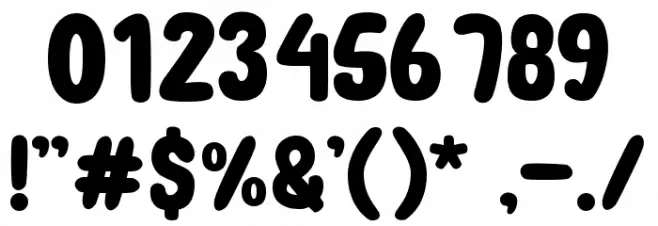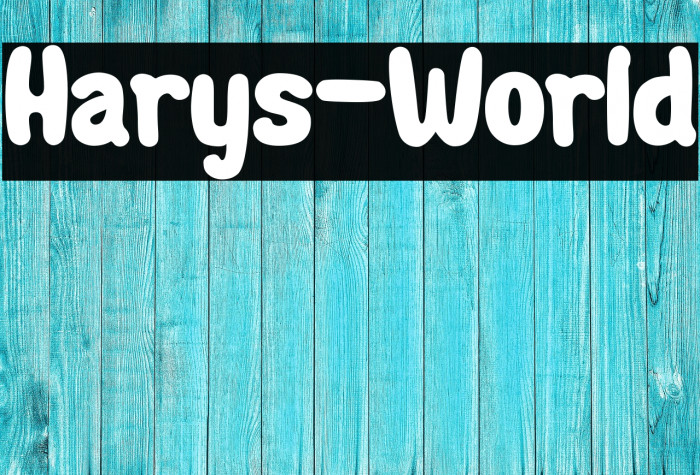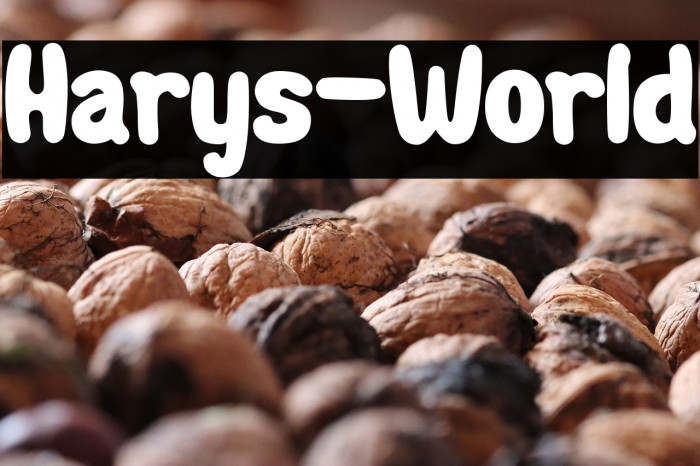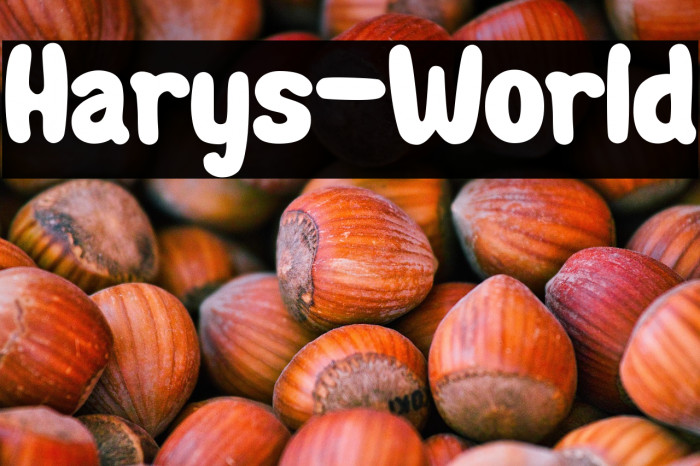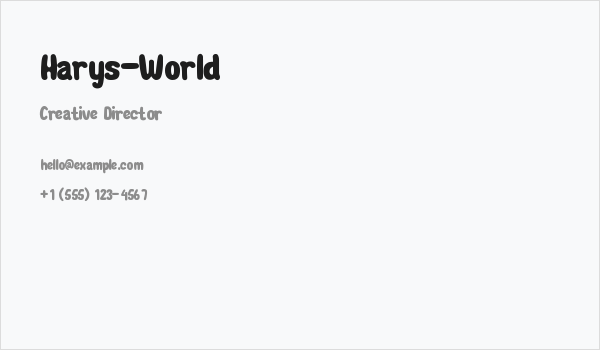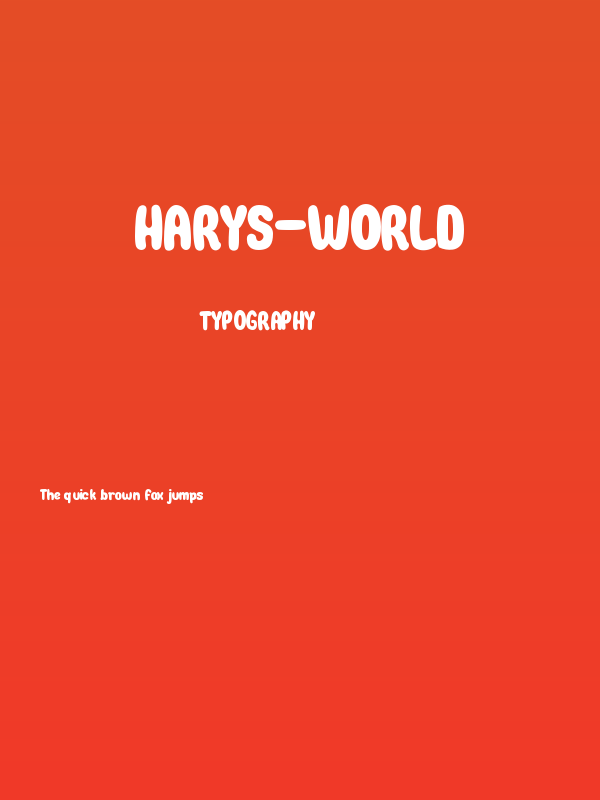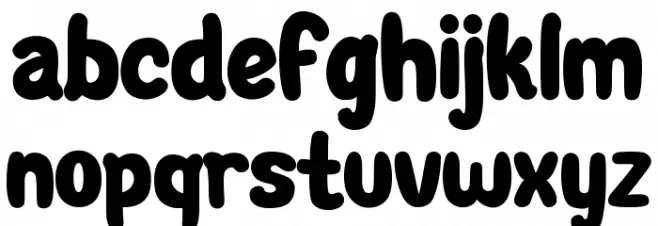
Harys-World Font
Harys-World Description
A playful, bold font with rounded edges and a bubbly appearance, suitable for informal and fun designs.
| Overall Style | Playful |
| Use Case | Headlines, Logos |
| Proposed Projects | Children's books, playful posters, casual branding. |